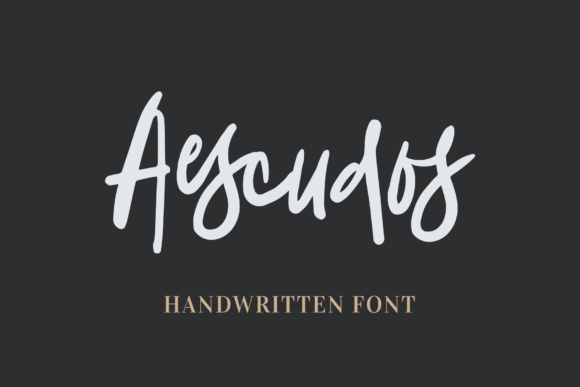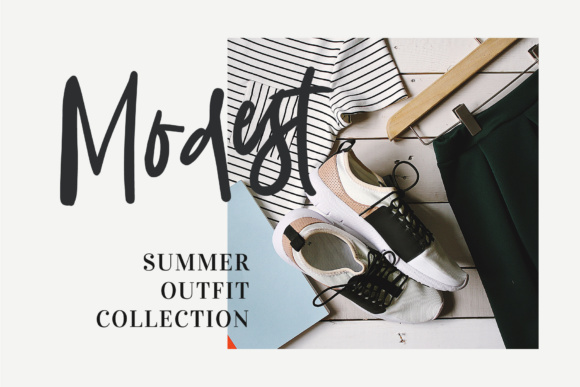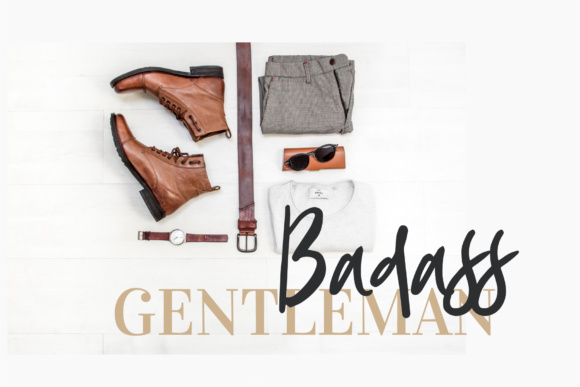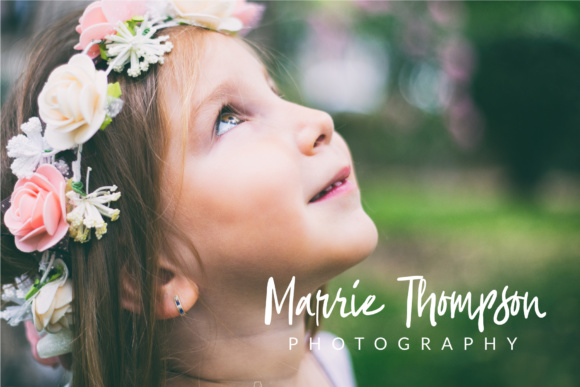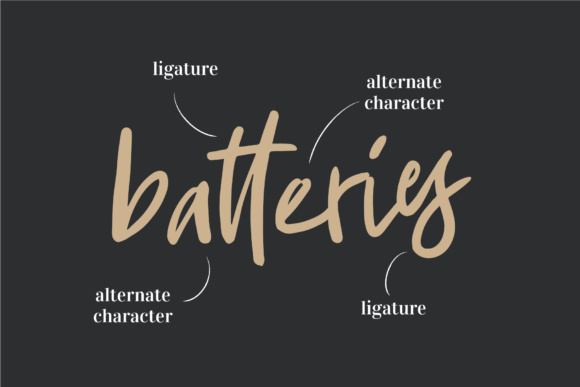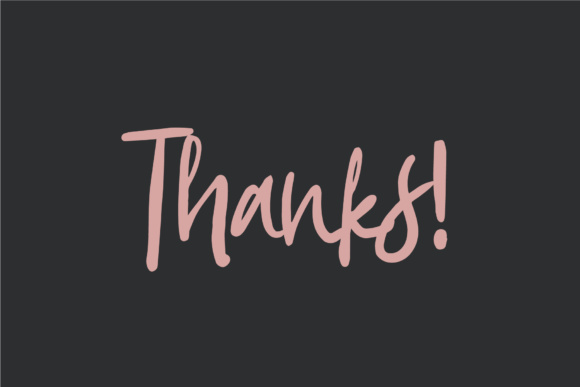
Aescudos Font
About Aescudos Font
The Aescudos is a natural handwritten font that is perfect for logotypes, headlines, invitations, greeting cards and more.